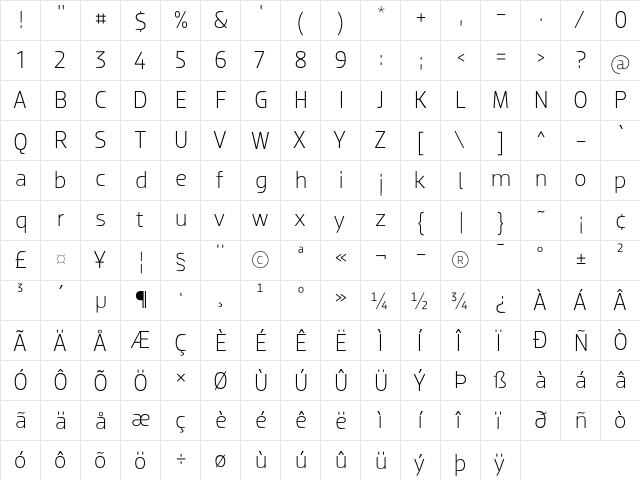
Dobra Light
Design Context for Dobra Typeface
Dobra is a composed and adaptable typeface that performs quietly and consistently across a wide range of design contexts. Its slender proportions lend an understated elegance to any composition.